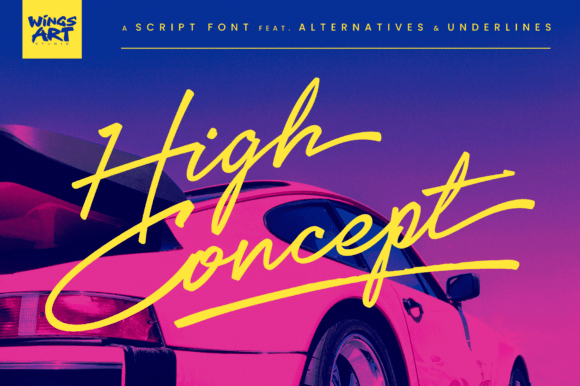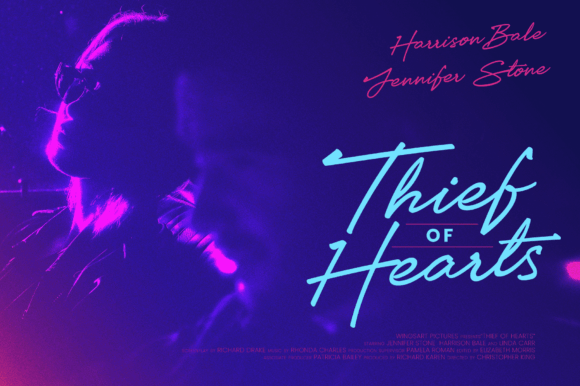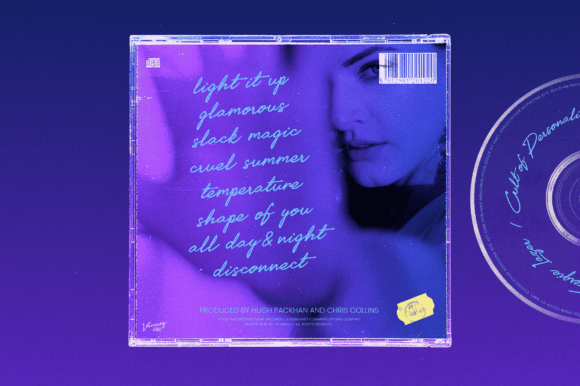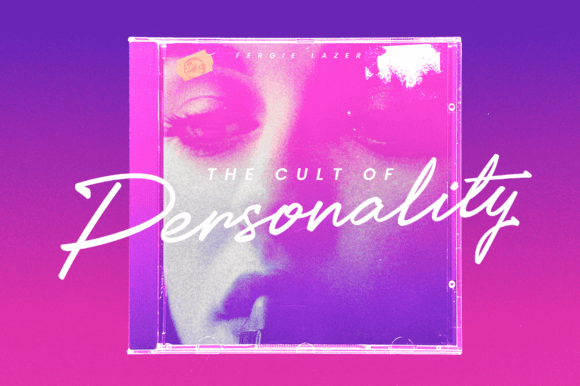
High Concept Font: Retro 80s Script for Modern Design
About the High Concept Font
The wait is over! The incredible High Concept Font is now available for your design toolkit. High Concept is a modern, versatile script font based on the look of chisel tip marker pens, offering a free-flowing and natural handwritten style. While it echos the retro stylings of 1980s and 90s scripts, it’s also been geared towards more contemporary uses such as modern magazine editorials, cook books, album covers and fashion led advertising. It has a laid-back and friendly aesthetic that can add the human touch to any project.
High Concept excels in headlines, short-form text, and display applications such as logos, posters, and packaging where its hand-drawn charm shines. Its informal, friendly nature makes it ideal for brands targeting a younger demographic or those wishing to project approachability and creativity. Avoid using it for body text or extended paragraphs; the informal style can become visually tiring and challenging to read over longer sections.
Pairing High Concept with a clean sans-serif like Montserrat or a geometric sans-serif like Futura creates a strong visual contrast, balancing its organic nature with a sense of modern structure. For a more vintage feel, consider pairing it with a classic serif like Garamond or a slightly more playful serif like Playfair Display. These pairings effectively emphasize High Concept’s unique character.
The font’s core personality is relaxed yet confident; friendly, approachable, and imbued with a playful energy. It’s perfect for projects needing a touch of informal hand-crafted style without sacrificing legibility in short bursts.
High Concept Font Usage Examples
High Concept Font Example